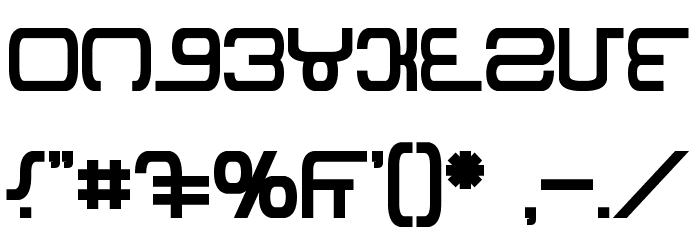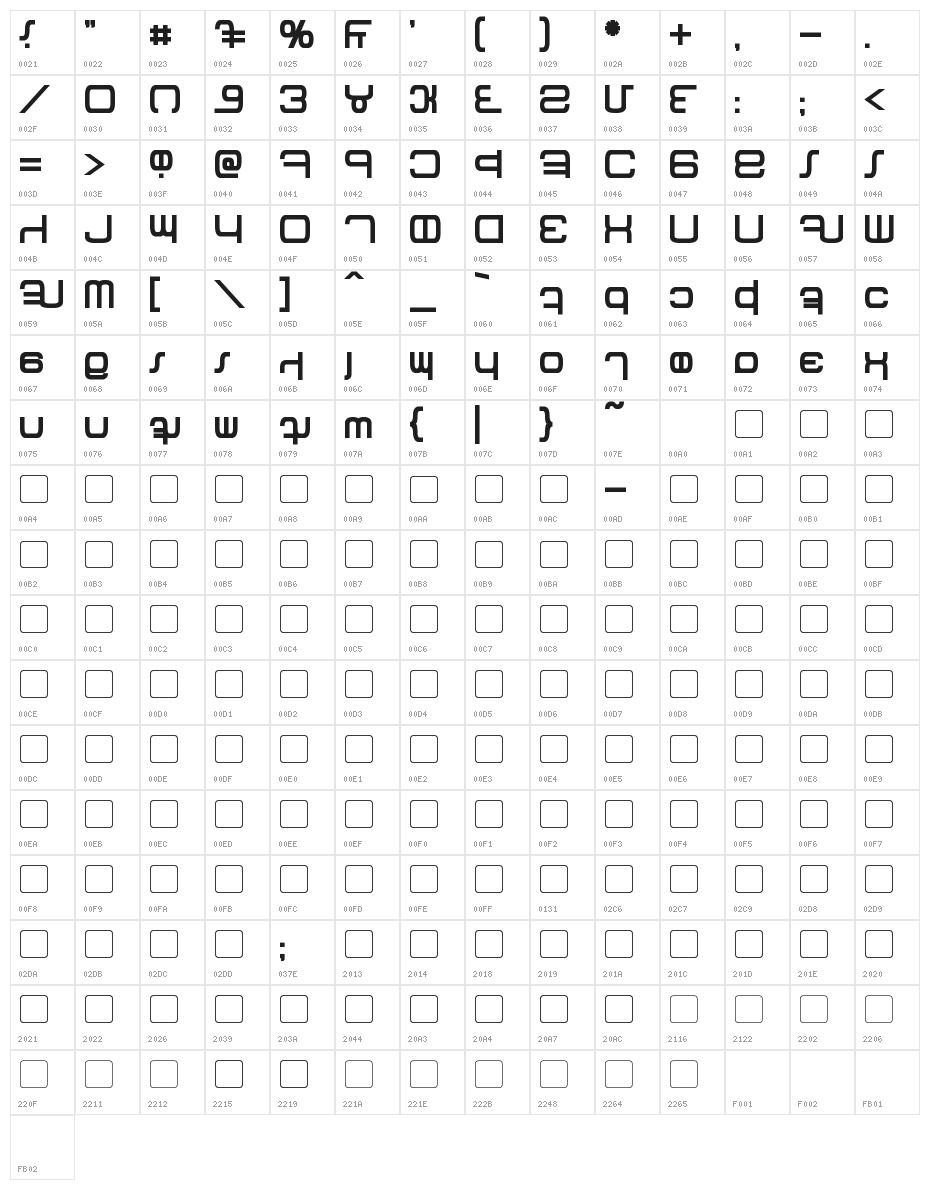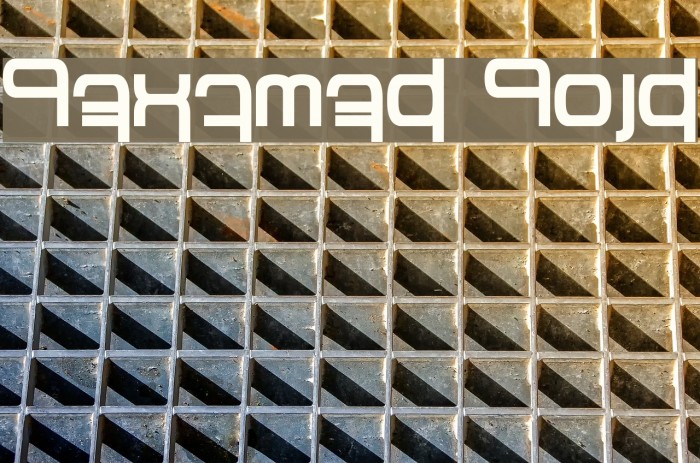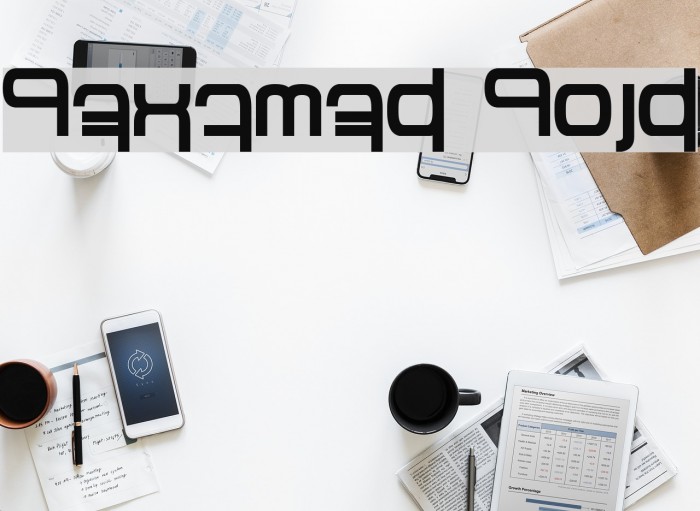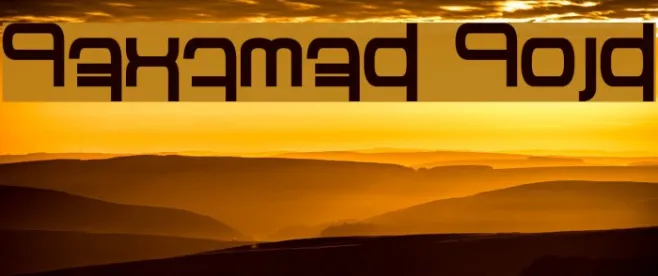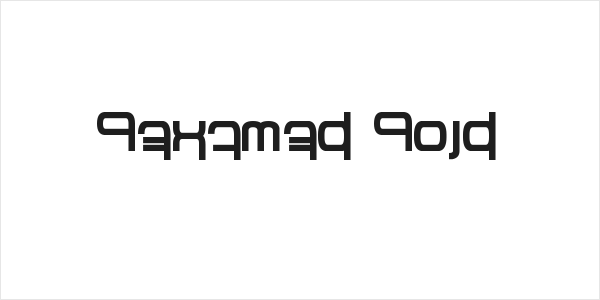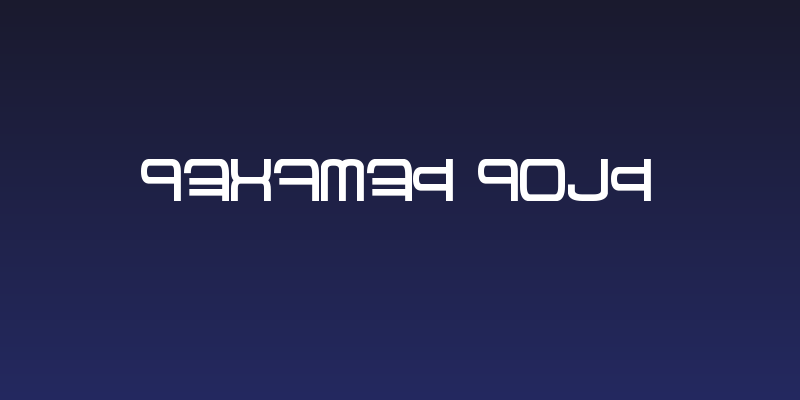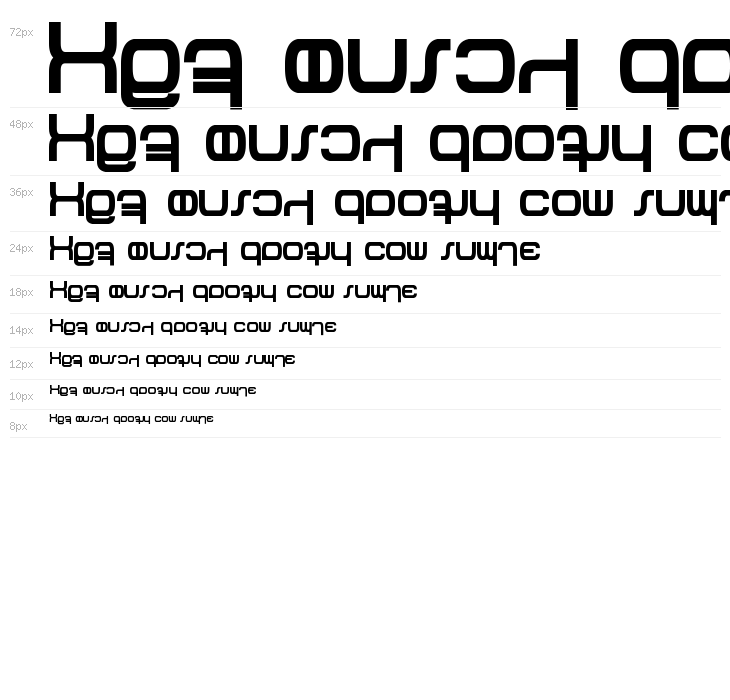
Betazed Bold Font
Betazed Bold Description
This font features a futuristic and geometric design, characterized by its bold and blocky letterforms. The characters are constructed with a consistent stroke width, giving it a uniform appearance. The design includes unique shapes and angles, creating a sense of movement and modernity. The uppercase and lowercase letters maintain a similar style, with rounded edges and a slightly condensed form. The numerals and special characters follow the same design principles, ensuring a cohesive look across all elements. This font's distinct style makes it stand out, suitable for creative and tech-oriented projects.